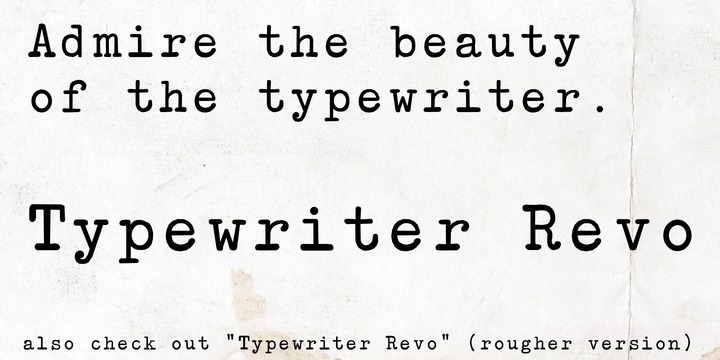
Typewriter Revo Font Family
Typewriter Revo is based on Typewriter BasiX but it is completely redesigned: While Typewriter BasiX has dapples and grunge (which looks more realistic), the contours of Typewriter Revo crisp and clear.
Typewriter Revo is more suitable for continuous text and Typewriter BasiX is suitable for large Pictures, logos or headings.
In contrast to Typewriter BasiX, Typewriter Revo includes 11 more characters and is also available in a bold, italic and bold + italic version.